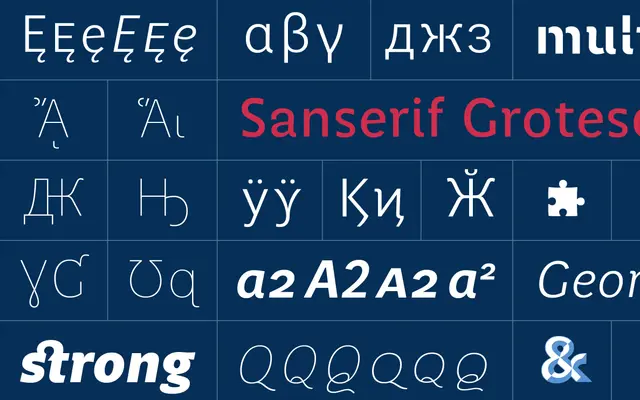
Perec
Pampatype · Alejandro Lo Celso · 2010
A six-weight grotesque by Alejandro Lo Celso honouring French writer Georges Perec, with extensive script coverage and full small caps across all styles.
Designed by Alejandro Lo Celso and first released in 2010, Perec carries a lighter, more refined character than a conventional grotesque, making it well suited to large-scale editorial work where elegance matters whilst retaining legibility at small sizes through open counters. The family runs to twelve styles across six weights with matching italics and small caps, and the PE edition extends coverage to full Cyrillic including Bulgarian, Macedonian, Serbian and Ukrainian, plus polytonic Greek. Cyrillics were drawn by Onur Yazıcıgil and Lo Celso, and the family sits within a broader superfamily alongside the playful Perec Ludique and the script-based Perec Scripte.
Pampatype describes Perec as a sanserif grotesque with romans and italics; its delicate spirit and open counters place it firmly in the humanist-inflected grotesque tradition rather than a strict geometric or neo-grotesque model.